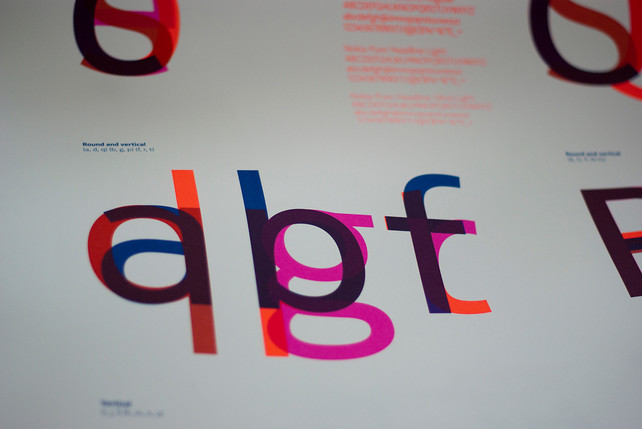
Nokia Releases A Font Designed To Work In Any Language
Nokia Pure tackles a common design problem facing global corporations: How does a company maintain a distinctive look and feel across borders and languages?
Brand consistency is one of the trickiest design problems facing global corporations today: How does a company maintain its look and feel across borders and languages--in both the United States and Saudi Arabia, English and Arabic?
Nokia tapped British typographers Dalton Maag recently to design what might be the ultimate multinational font. Nokia Pure has a clean, simple, and yes, pure aesthetic that is conceived to work on mobile devices in virtually any script, whether Latin, Devanagari, or Tamil.
The font is part of the Finnish phone giant’s larger rebranding initiative. Nokia sells devices in more than 150 countries and raked in some $48 billion in revenue last year. But it has watched its market share drop, amid growing competition from smartphone providers such as Apple and Google. To reestablish itself as mobile’s top dog, Nokia is issuing a new generation of tech-enabled phones and updating its visual identity to convey both the classic Finnish design on which the company was founded and larger global ambitions. Nokia Pure is a cornerstone of the new look and figures into the company’s user interfaces (particularly the new generation of smartphones) and corporate communications.
So what makes for a truly global font? “There isn’t really a stylistic recipe for fonts to make them particularly suitable to be translated into different scripts,” creative and managing director Bruno Maag tells Co.Design. “Each script has its own calligraphic and cultural history. It is more a question of matching different calligraphic styles to one another, without the features of one script dominating another.”
Nevertheless, the designers’ starting point was Latin, and for obvious reasons: “This is the most widely used script natively, by about 2 billion people globally. It sets the tone for the visual expression and functionality,” Maag says.
Then, they had to make the font legible on mobile phones, where a dearth of real estate calls for scant, if any, design flourishes. “Knowing that the design has to work in UI environments meant that we needed to ensure that character shapes and proportions were kept open,” he says. “In the design of this font we followed the mantra that a font is here to help a reader processing content, not to draw attention to itself.”
From there, they converted Nokia Pure into more complex scripts by first conducting in-depth research into the history of the scripts and even practicing calligraphy, which helped them understand nuances like letterform construction and cadence.
They also studied the design of Nokia Pure itself to tease out defining characteristics, such as how curves are formed and strokes terminate. Then they applied those features to the non-Latin scripts.
“When we design for non-Latin we always aim to create a rhythm and texture that is sympathetic so when you have the two scripts running side by side they create, ideally, the same tonal value on the page,” Maag says. “With Nokia Pure the simplicity and mono-linearity of the script greatly helps to translate the design into different scripts.”